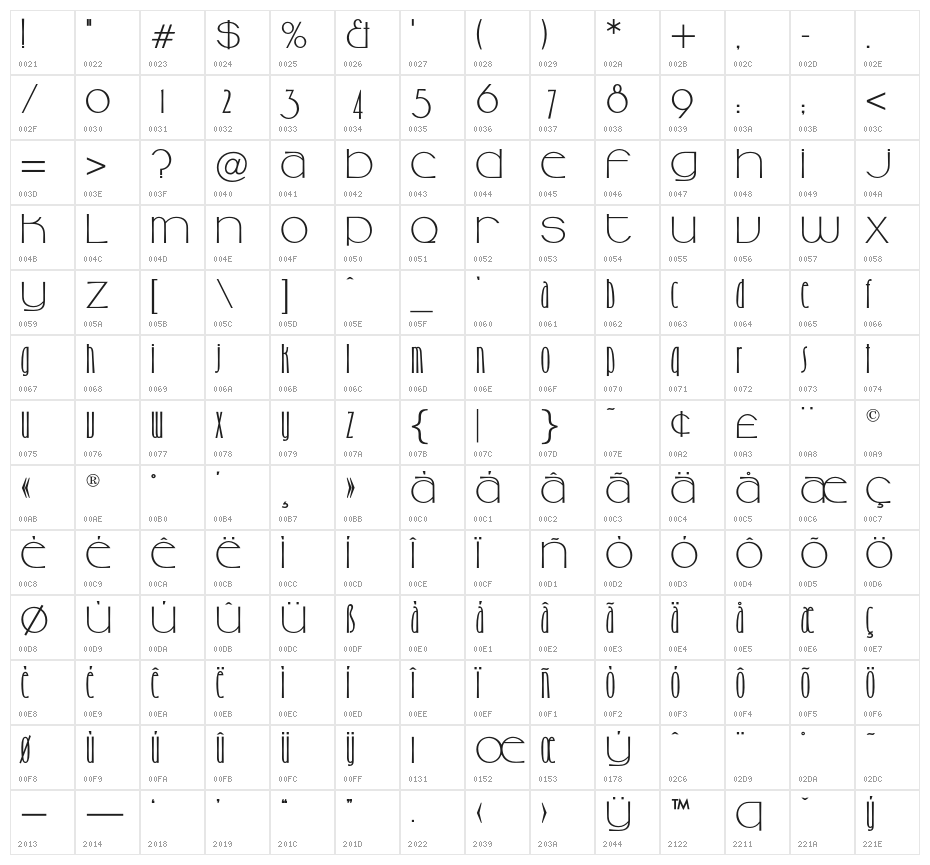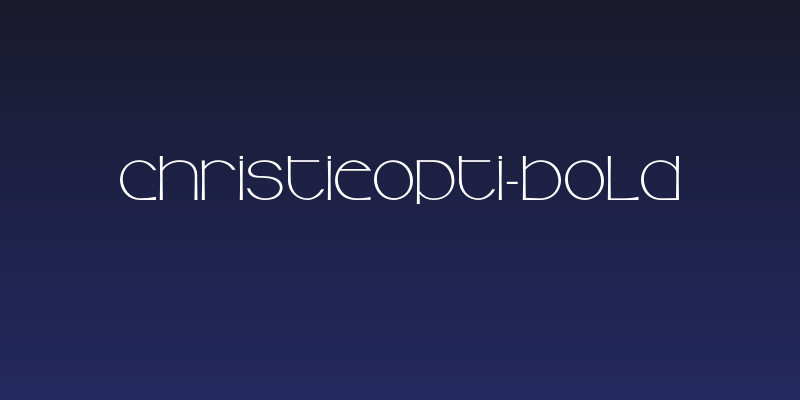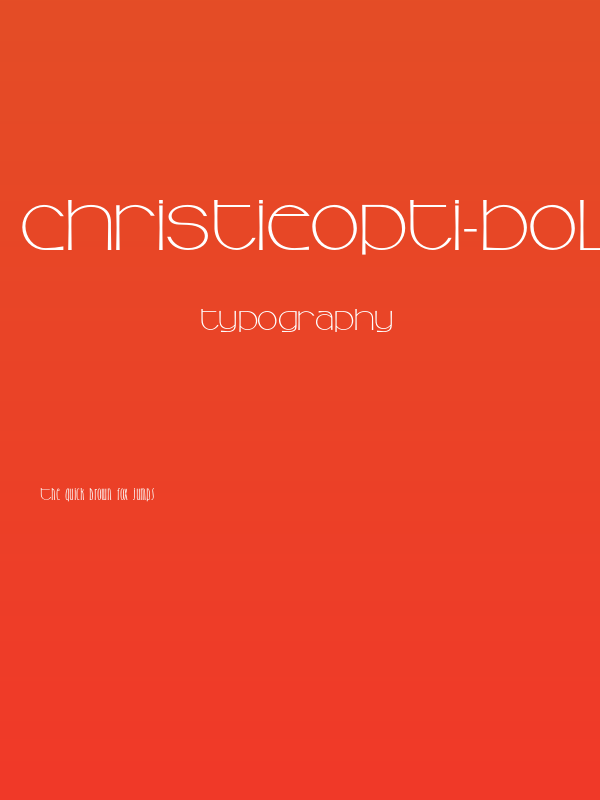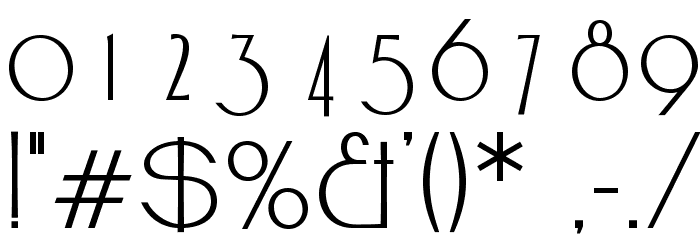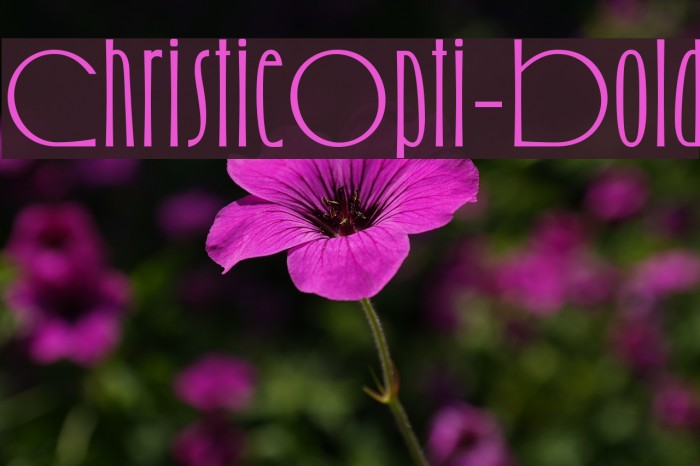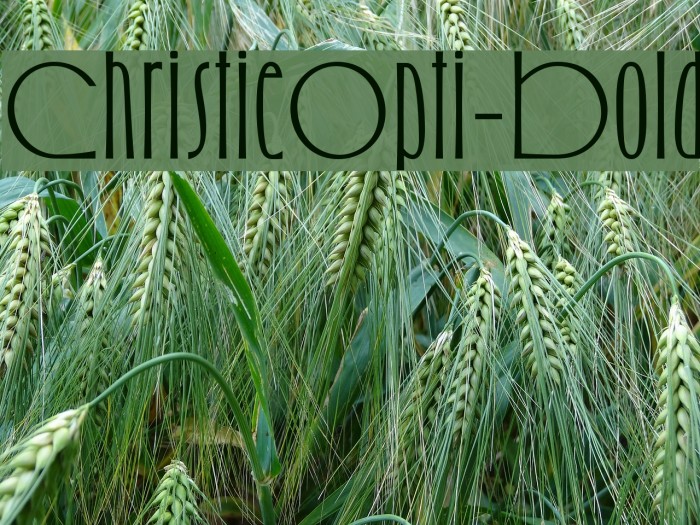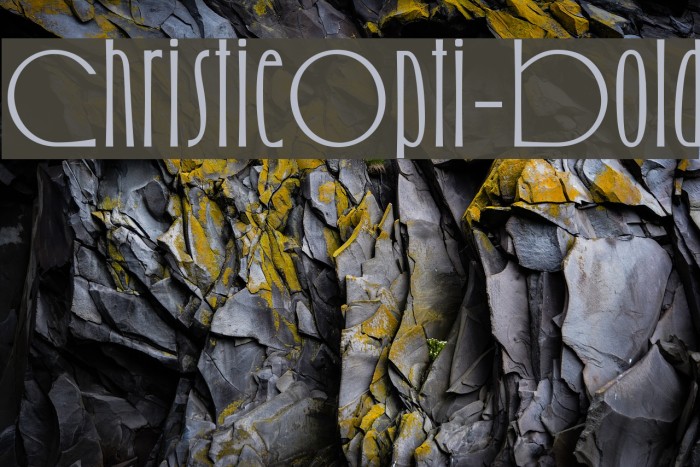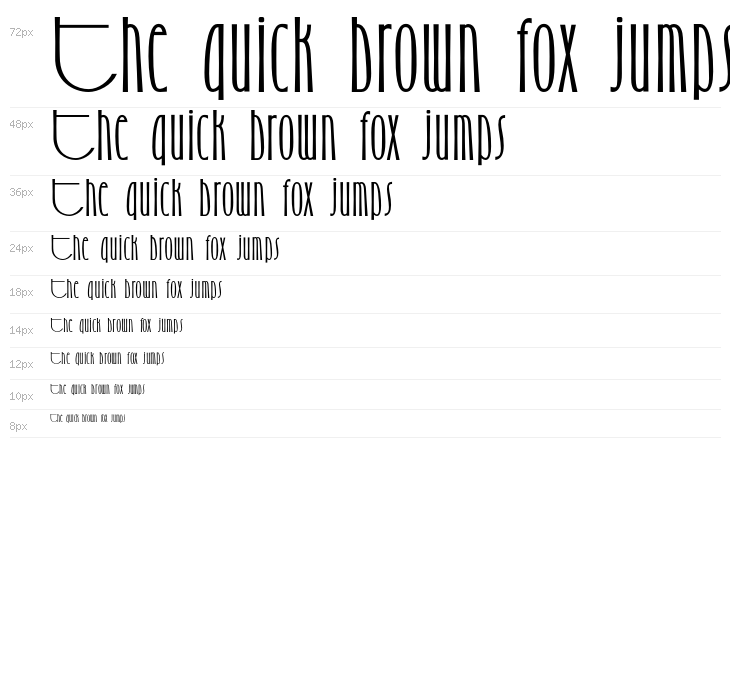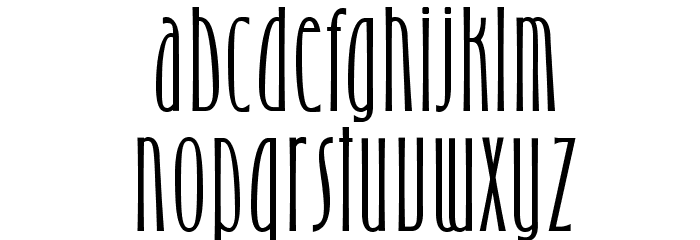
ChristieOpti-Bold Font
ChristieOpti-Bold Description
This font features a unique blend of geometric and modern elements, characterized by its thin, elongated letterforms and minimalistic design. The uppercase letters exhibit a tall, narrow structure, while the lowercase letters maintain a consistent height, creating a harmonious balance. The numerals are sleek and align well with the overall aesthetic, adding to the font's versatility. Special characters are designed with a similar thinness, ensuring uniformity across all glyphs. This font's clean lines and contemporary style make it suitable for a variety of design applications.
| Proposed Projects | Ideal for modern branding, editorial design, and minimalist posters. |